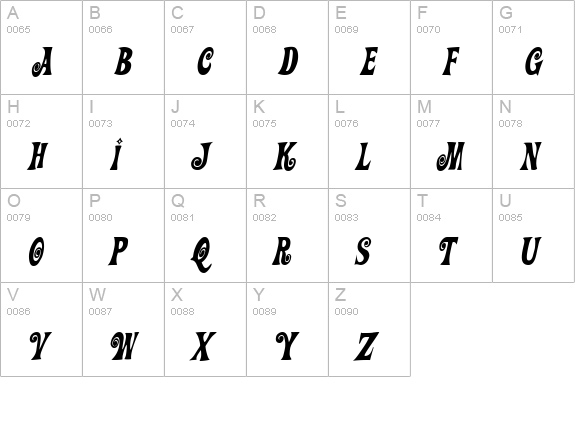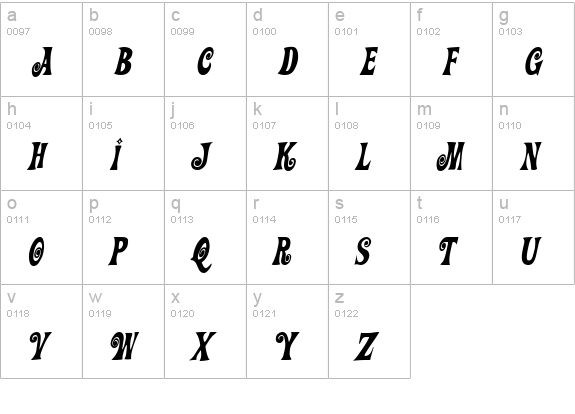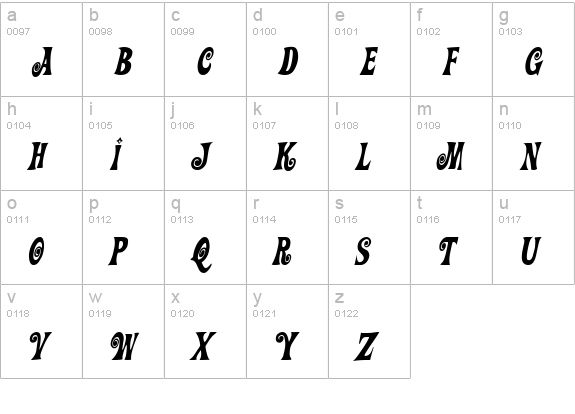
Action Is JL Italic is a distinctive, italic variant in the Action typeface family \xE2\x80\x94 well suited to design and typography projects.
Action Is JL Italic font is a dynamic and bold typeface that exudes energy and movement. Its slanted italic design adds a sense of urgency and action to any project it is used in. With its sharp angles and sleek lines, this font is perfect for creating eye-catching titles, headers, and logos that demand attention. Best of all, Action Is JL Italic font is available for free download at FontsMarket.com. Whether you're working on a poster, website, or branding project, this versatile font will help you make a powerful statement with its modern and impactful style. Don't miss out on the chance to add this striking typeface to your font collection today!